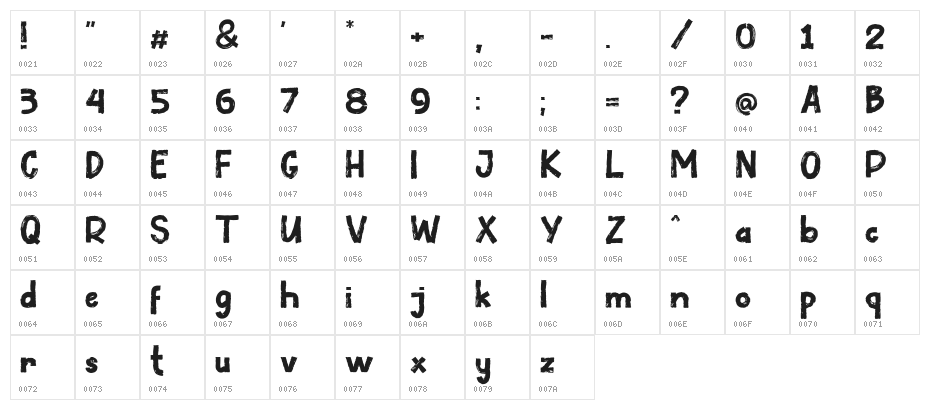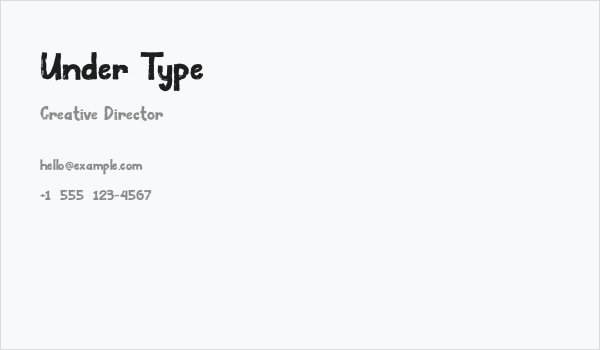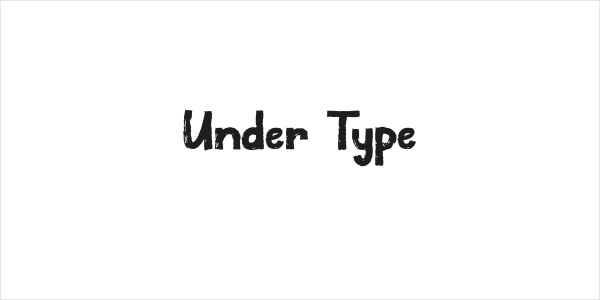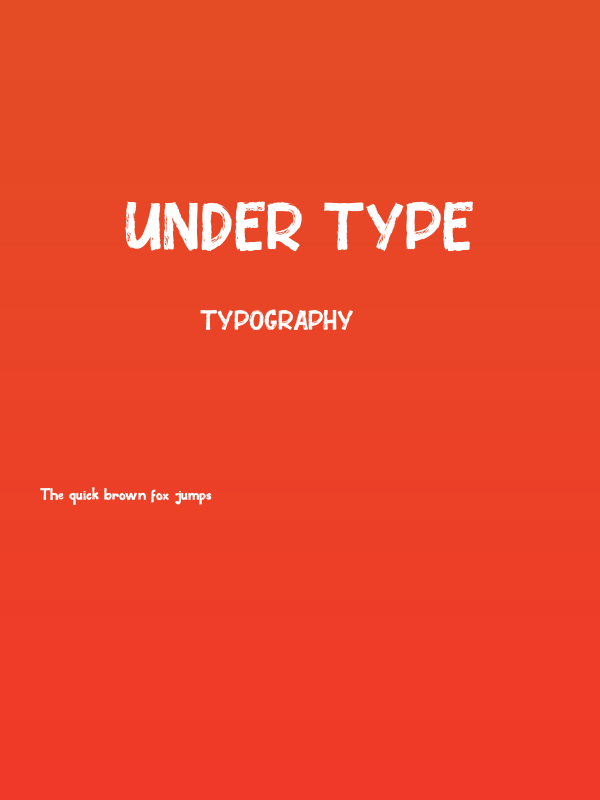
Under Type Font
Under Type Description
This font features a bold and rugged style with a hand-drawn appearance, characterized by uneven strokes and a textured finish. The uppercase and lowercase letters maintain a consistent height, while the numbers and special characters follow the same rough aesthetic. The font exudes a sense of energy and dynamism, making it suitable for projects that require a strong visual impact. Its unique style is reminiscent of brush strokes or graffiti, adding a creative and artistic flair to any design.
| Proposed Projects | Ideal for posters, album covers, street art designs, and branding that requires a bold, artistic touch. |